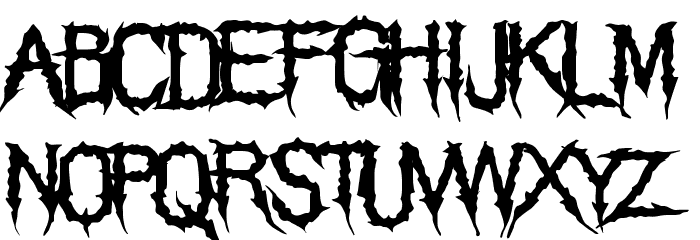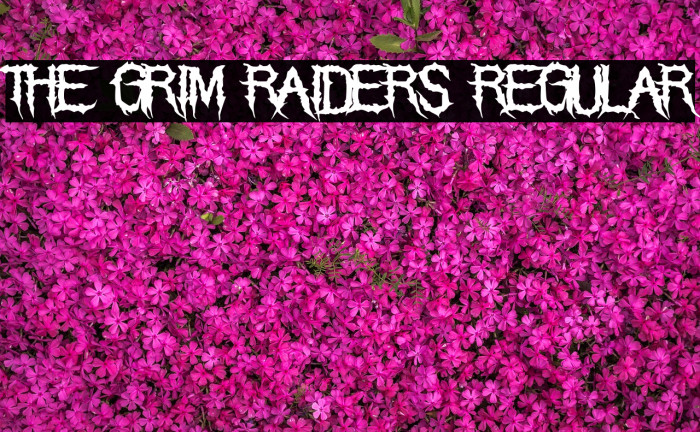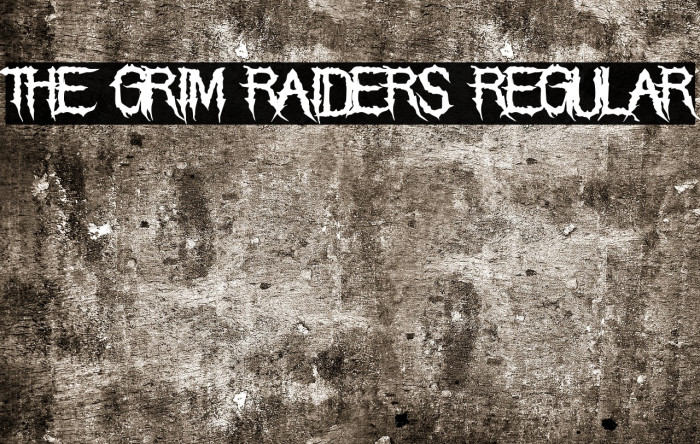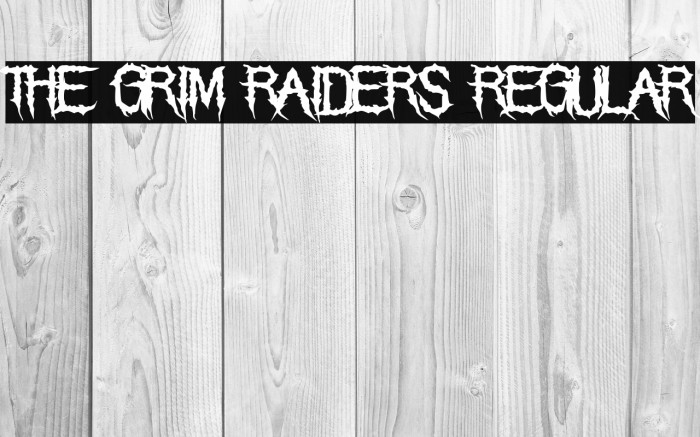
The Grim Raiders Regular Font
This font features a highly decorative and edgy design, characterized by sharp, jagged edges and a bold presence. The letters have a distressed, almost thorn-like appearance, giving them a menacing and intense look. The style is reminiscent of horror or gothic themes, making it suitable for projects that require a dramatic and eye-catching typeface. The uppercase and lowercase letters maintain a consistent style, with each character displaying unique, irregular contours that add to the chaotic aesthetic. The numbers and special characters follow the same design principles, ensuring a cohesive look across all text elements.
A bold, jagged, and decorative font with a gothic, horror-inspired style.
- Proposed Projects: Ideal for horror-themed posters, Halloween event flyers, video game titles, and any project needing a dramatic, edgy typeface.
- Overall Style: Gothic, Horror